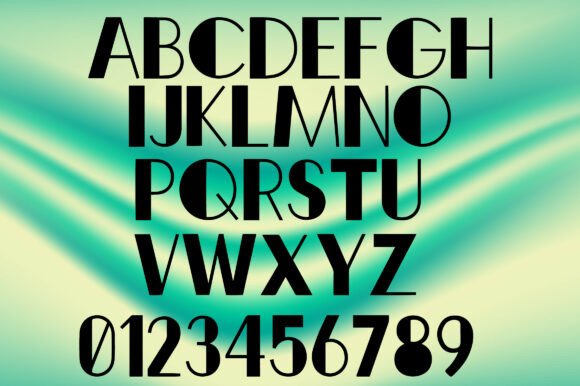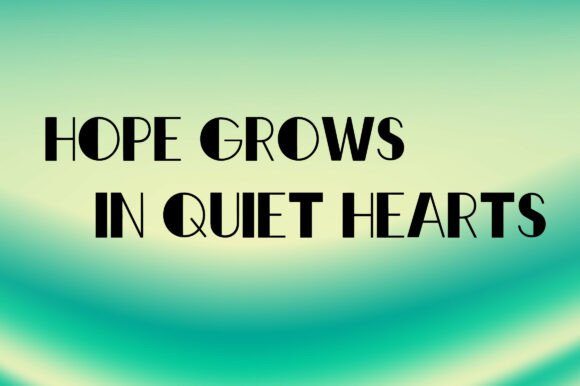
I still remember the countless hours I spent scrolling through font libraries, searching for the perfect typeface for a client’s branding project. The brief was simple: elegant, modern, and eye-catching. I must have tried dozens of fonts, but none seemed to fit the bill. That was until I stumbled upon CAMILA, a sleek modern display font that exceeded my expectations.
A First Impression: What Makes CAMILA Special
CAMILA is a stunning display font designed with elegance and sophistication in mind. Its high-contrast strokes, geometric shapes, and refined art-deco-inspired feel make it perfect for a variety of creative projects, from branding and logos to posters, packaging, and invitations.
• ✨ Clean and stylish letterforms: CAMILA’s sleek design creates a sophisticated and eye-catching look that’s sure to turn heads.
• ✅ High-contrast strokes: The font’s elegant strokes add a touch of refinement and luxury to any design.
• ✅ Geometric shapes: CAMILA’s geometric shapes give it a modern and art-deco-inspired feel that’s perfect for creative projects.
• ✨ Elegant and sophisticated design: CAMILA’s sleek letterforms and high-contrast strokes make it perfect for luxury brands and high-end designs.
• ✅ Easy to read: Despite its elegant design, CAMILA is surprisingly easy to read, even at smaller font sizes.
• ✅ Versatile: This font is perfect for a variety of creative projects, from branding and logos to posters and packaging.
While CAMILA is an excellent font, it’s not perfect. Here are a few quirks to keep in mind:
• ⚠️ Limited character set: CAMILA only includes uppercase letters A-Z and numbers 0-9, which may limit its use for certain projects.
• 🤔 Not suitable for body text: Due to its elegant design and high-contrast strokes, CAMILA is best used as a display font or for headings.
CAMILA was designed with elegance and sophistication in mind. Its creator drew inspiration from the art-deco era, combining geometric shapes and high-contrast strokes to create a unique and refined font. The result is a font that’s perfect for luxury brands, high-end designs, and creative projects that require a touch of elegance.
Q: What is CAMILA?
A: CAMILA is a sleek modern display font with elegant high-contrast strokes, geometric shapes, and a refined art-deco-inspired feel.
Q: What characters does CAMILA include?
A: CAMILA includes uppercase letters A-Z and numbers 0-9.
Q: Is CAMILA suitable for body text?
A: No, CAMILA is best used as a display font or for headings due to its elegant design and high-contrast strokes.